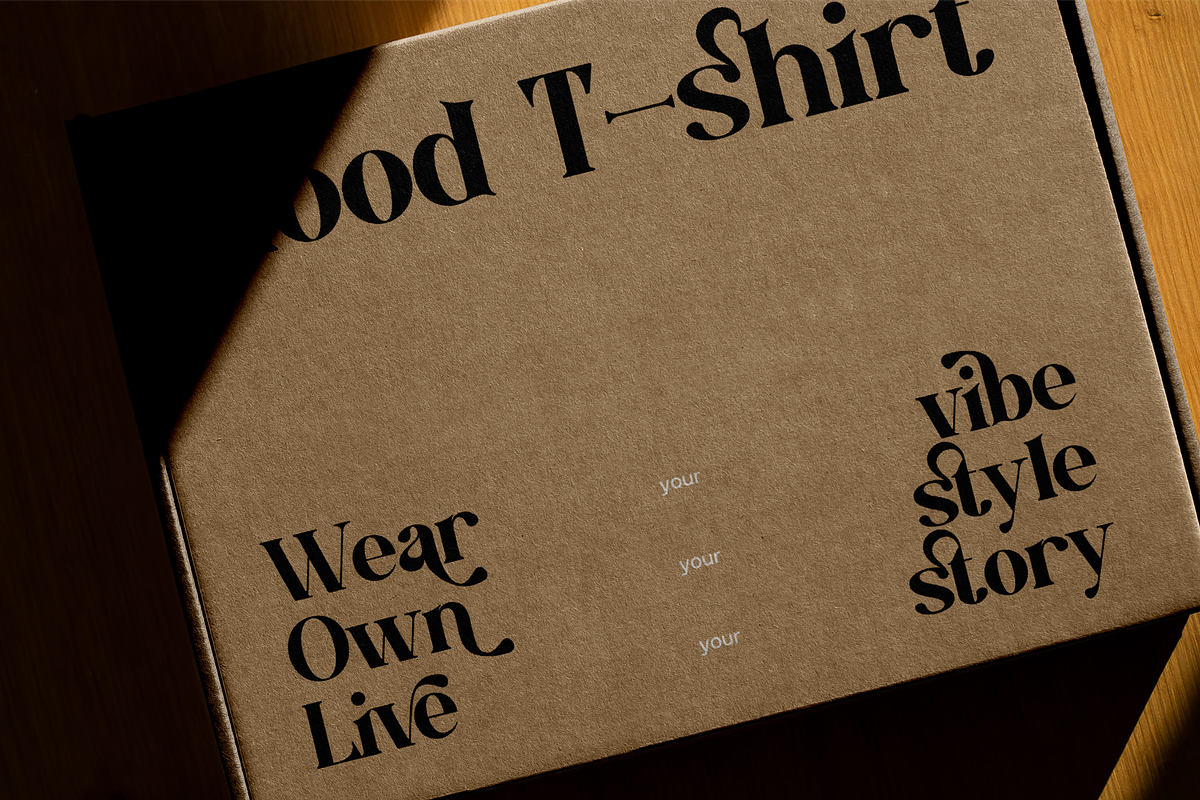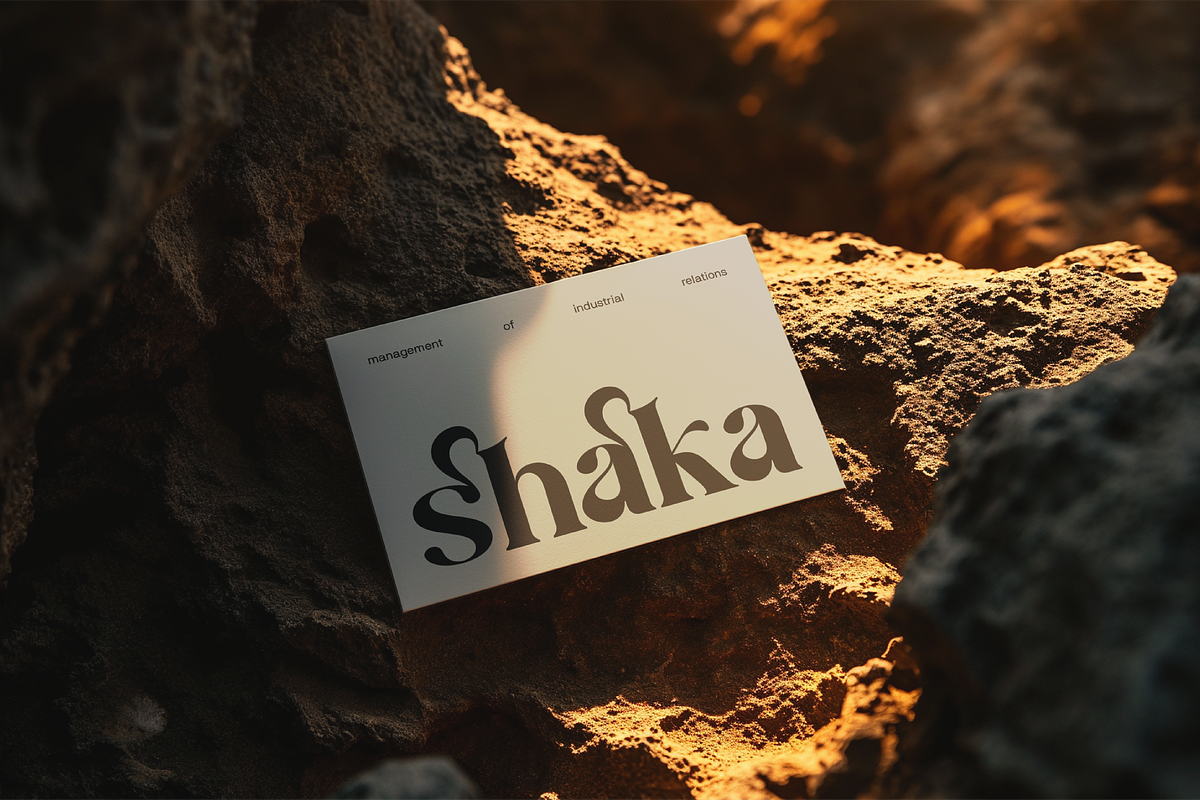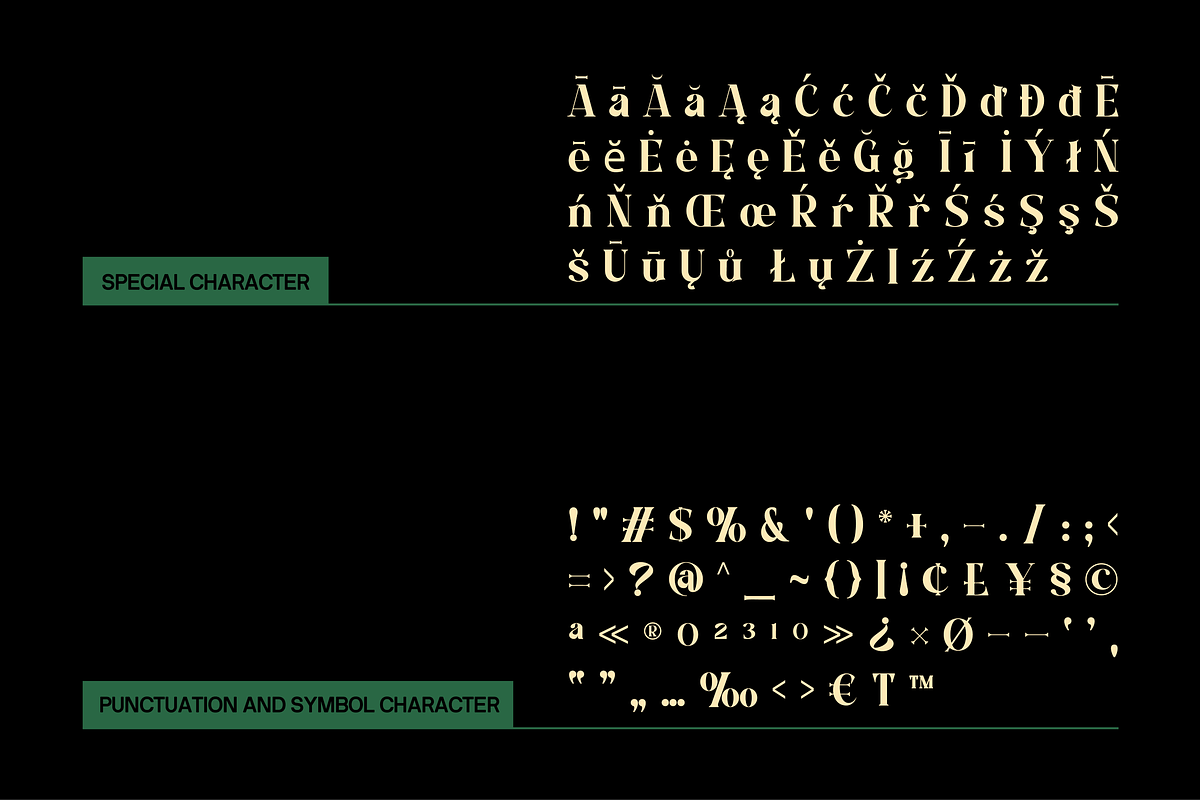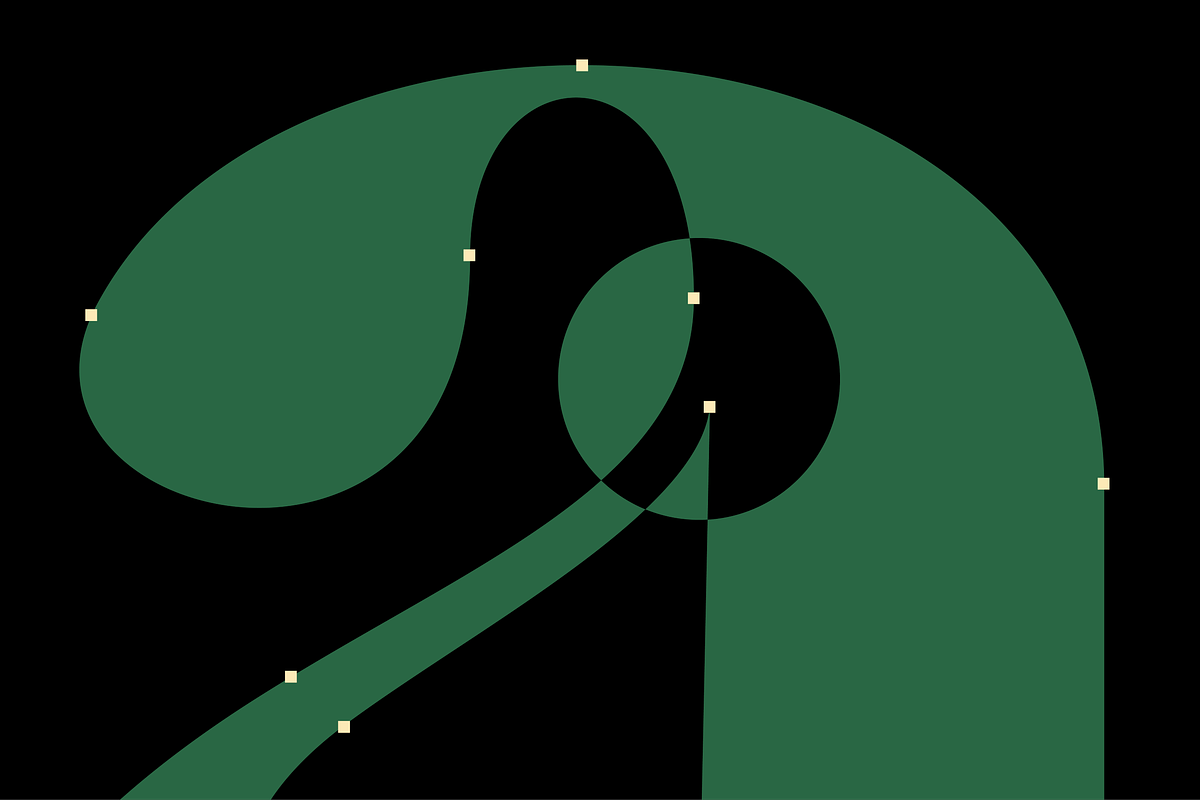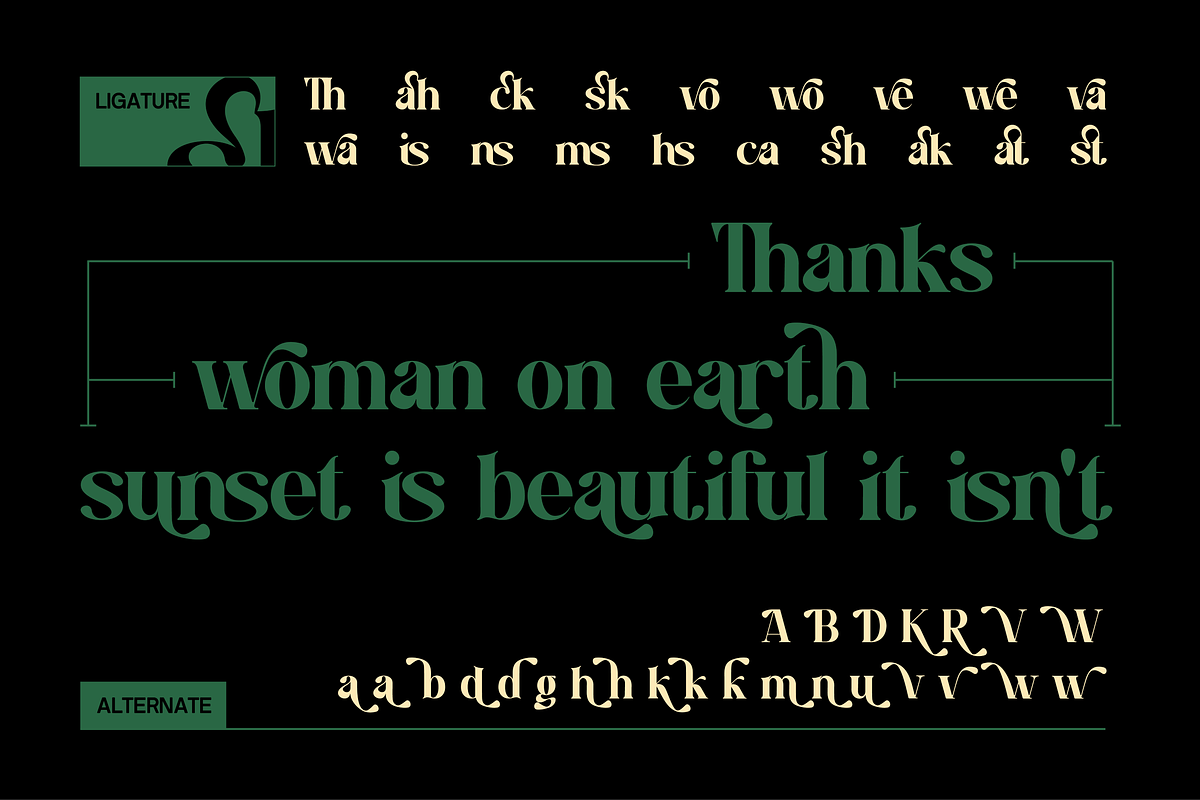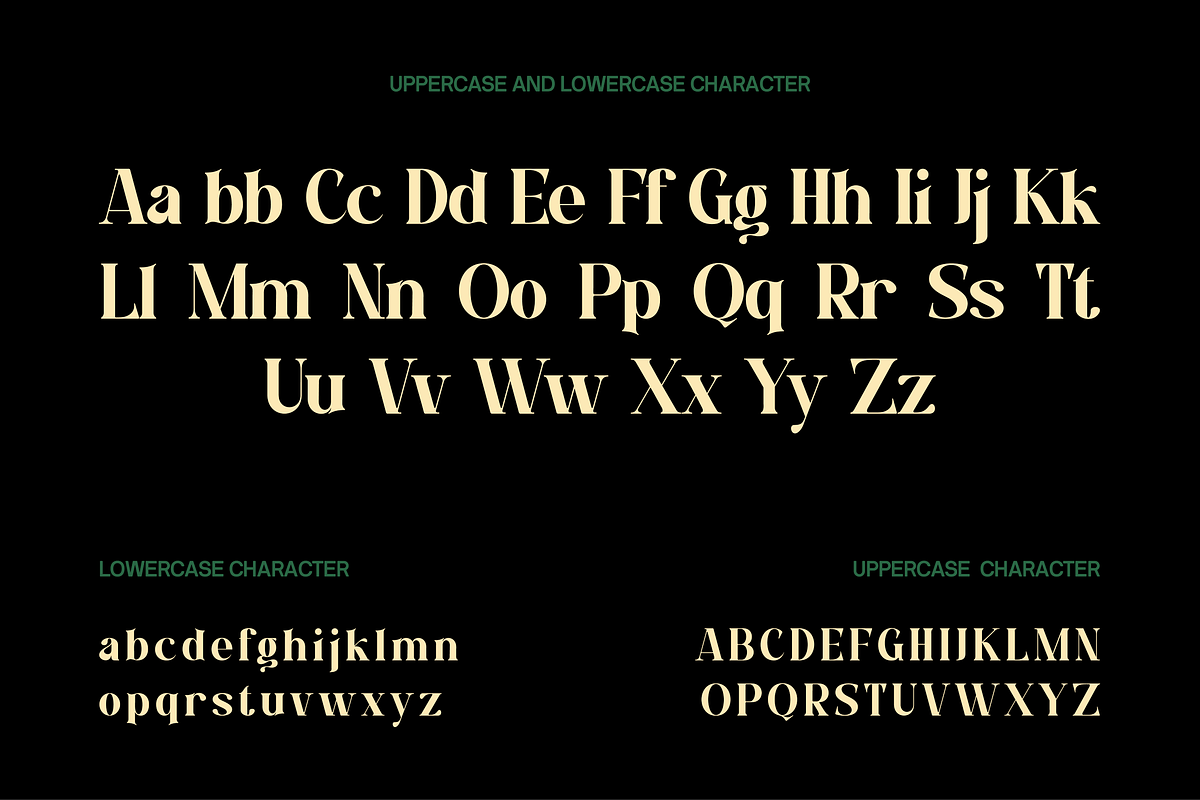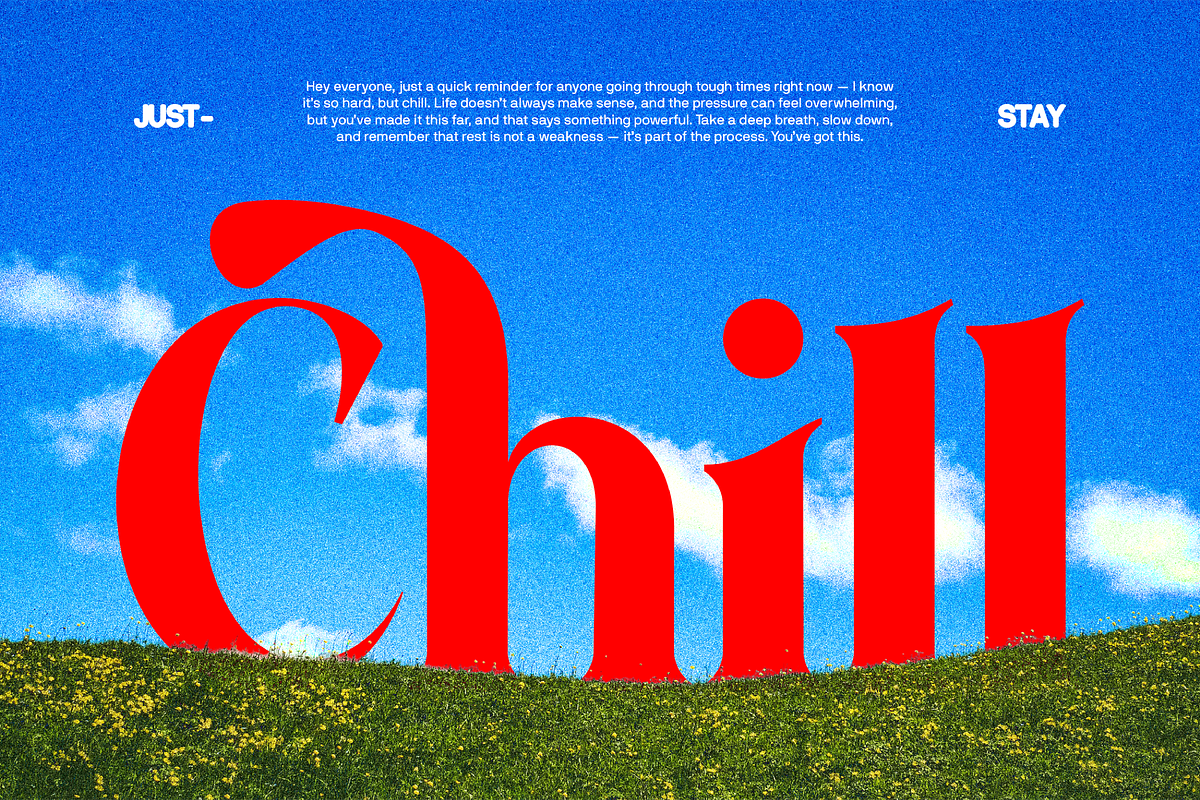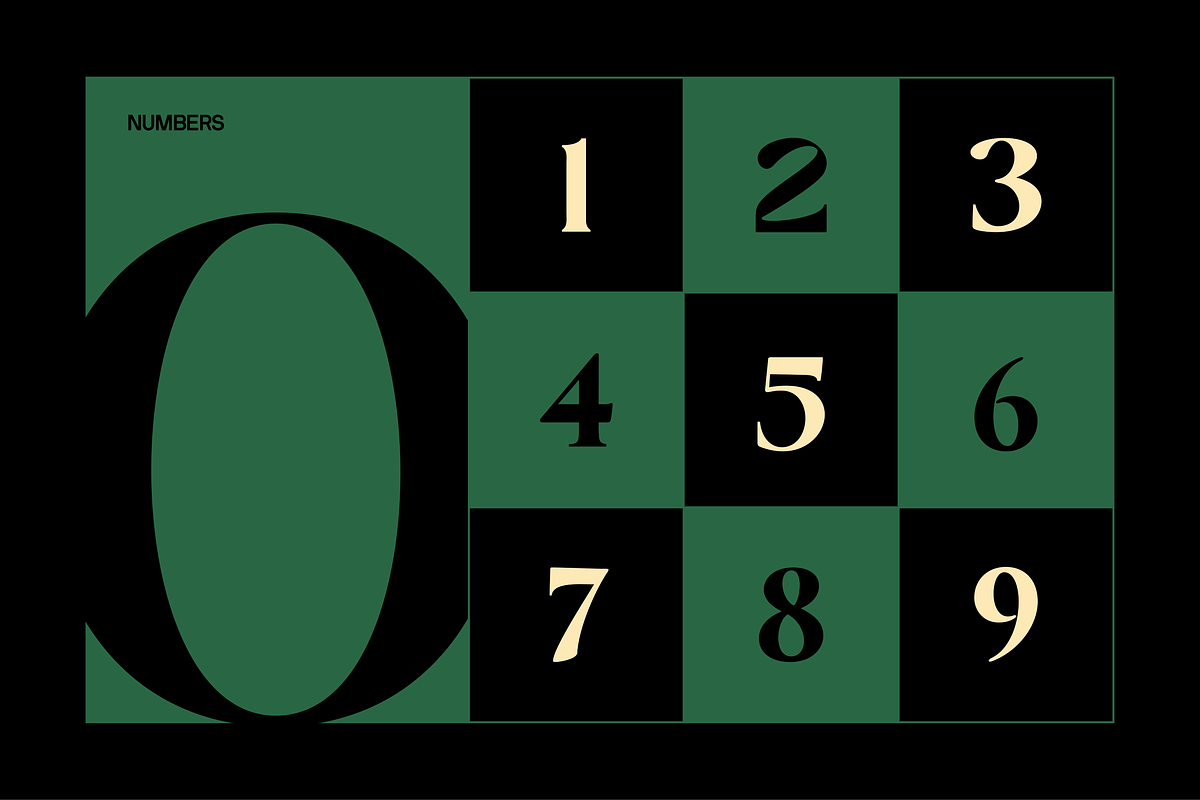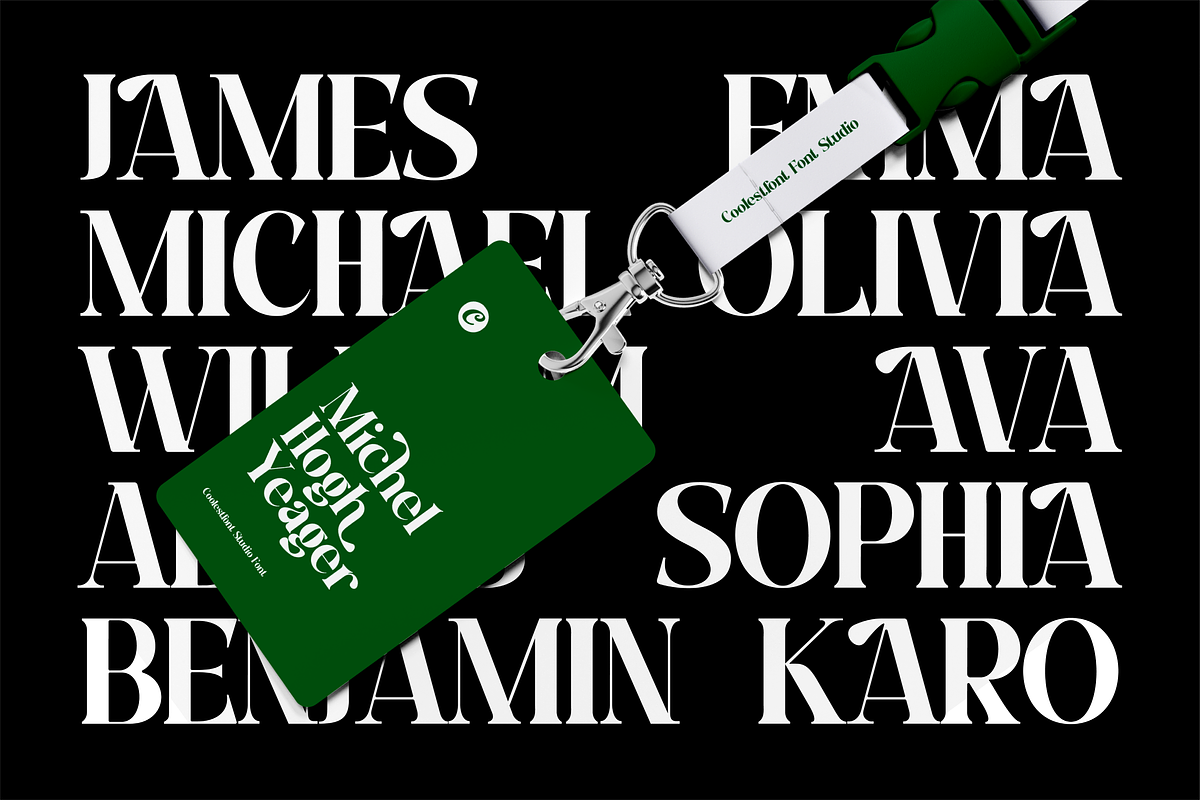
Dasko Modern Serif Font
Dasko Serif Font
Dasko is a bold and expressive serif display font that blends modern aesthetics with classic sophistication. Featuring thick strokes, elegant curves, and artistic swashes, Dasko adds a distinctive flair to any design. Its unique character shapes especially the stylized "s", "k", and "a"—create visual interest while maintaining readability and elegance.
Designed for creatives who seek a font that speaks with confidence, Dasko is perfect for projects that demand both luxury and personality. Whether you're designing a logo, packaging, or editorial spread, this font will elevate your message and make a lasting impression.
With multilingual support, alternates, and ligatures, Dasko is as versatile as it is stylish making it one of the coolest fonts for both modern and vintage-inspired design work.
- Alternates and ligatures
- Punctuation and symbols
- Display serif with high contrast strokes
- Stylish swashes and curves
Perfect for
- Logo design
- Luxury branding
- Editorial and magazine headlines
- Fashion and beauty packaging
- Wedding invitations
- Social media graphics
- Product labels and business cards
- Modern stationery
- Portfolio or lookbook layouts